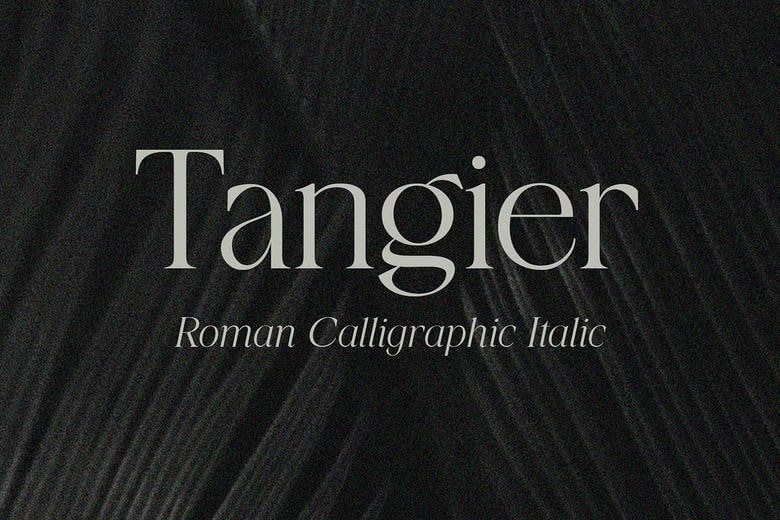
Tangier Font
Tangier is a display serif font which is new age and sophisticated look and is best suited for branding and packaging. Tangier’s clean-cut contempo look makes this face ideal for any graphic design project including logos, titles and headlines. The font is available in two types, regular and italic, with bold thick and thin characteristic line Webdings.
The regular style can be used to achieve such effects as headlines or even make body text look more elegant, the italic style, on the other hand, should be used to give subheadings or pull quotations more style.
Tangier’s serifs are thick and hence makes it classic and at the same time has modern feel due to its newfound design. This makes it ideal for usage in various environments, mainly branding and advertising, to commissioning and fashion magazine pages.
Tangier Serif Font